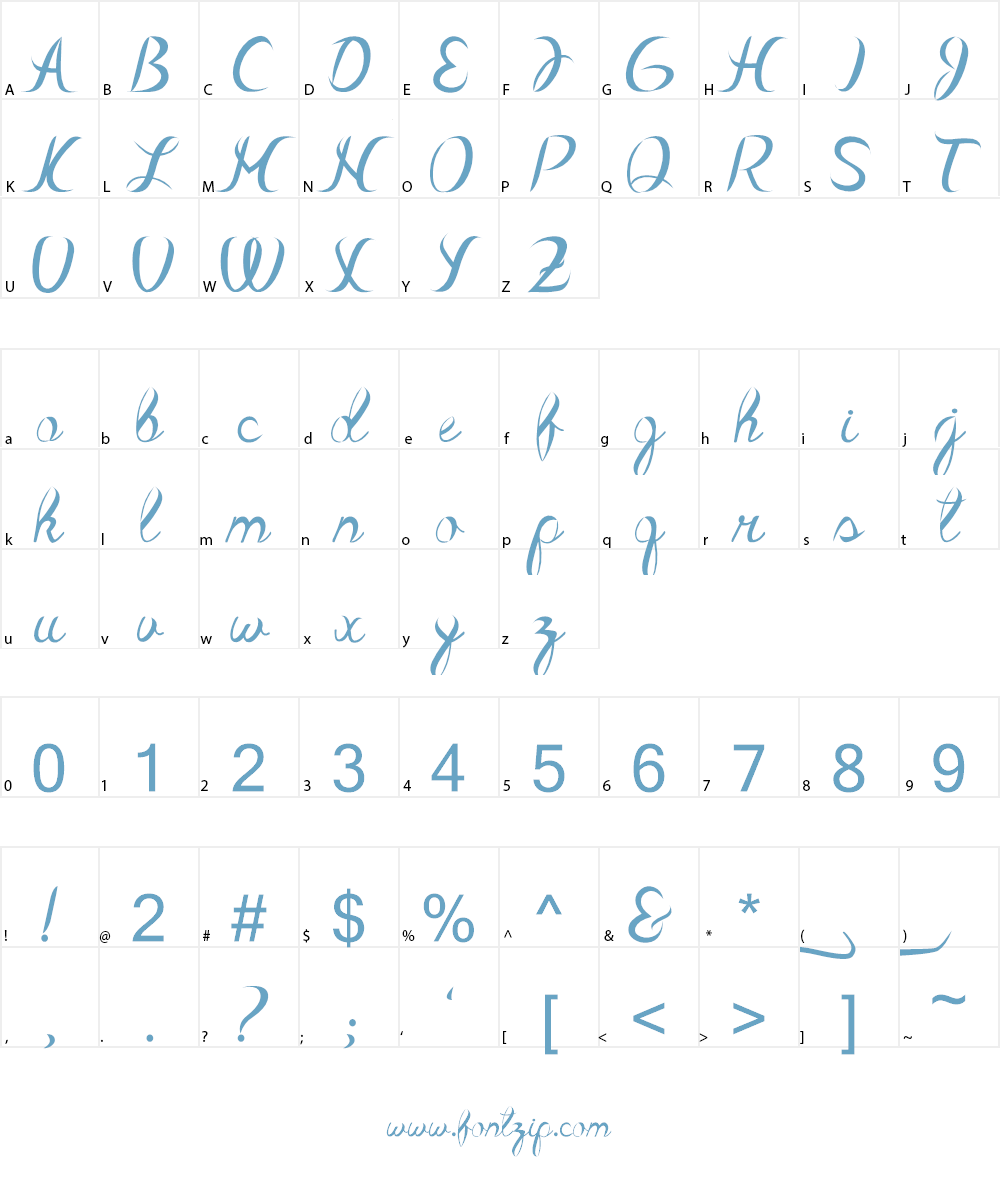
The complete version include 3 types of Swashes with several sizes for each (Total: 20 Swashes).
Is suitable for many types of projects such as logos, posters, apparel printing, labels, quotes, headlines, greeting and love cards, invitations and more.
For partial version use ( )_ after a word for different endings.
Examples: Luna( or Luna) or Luna_